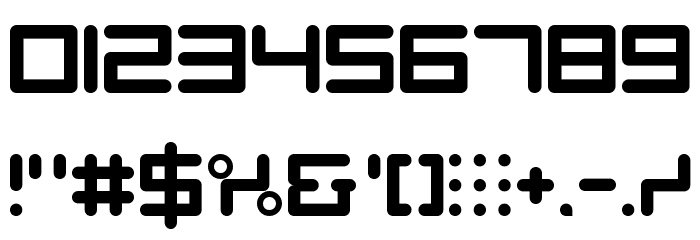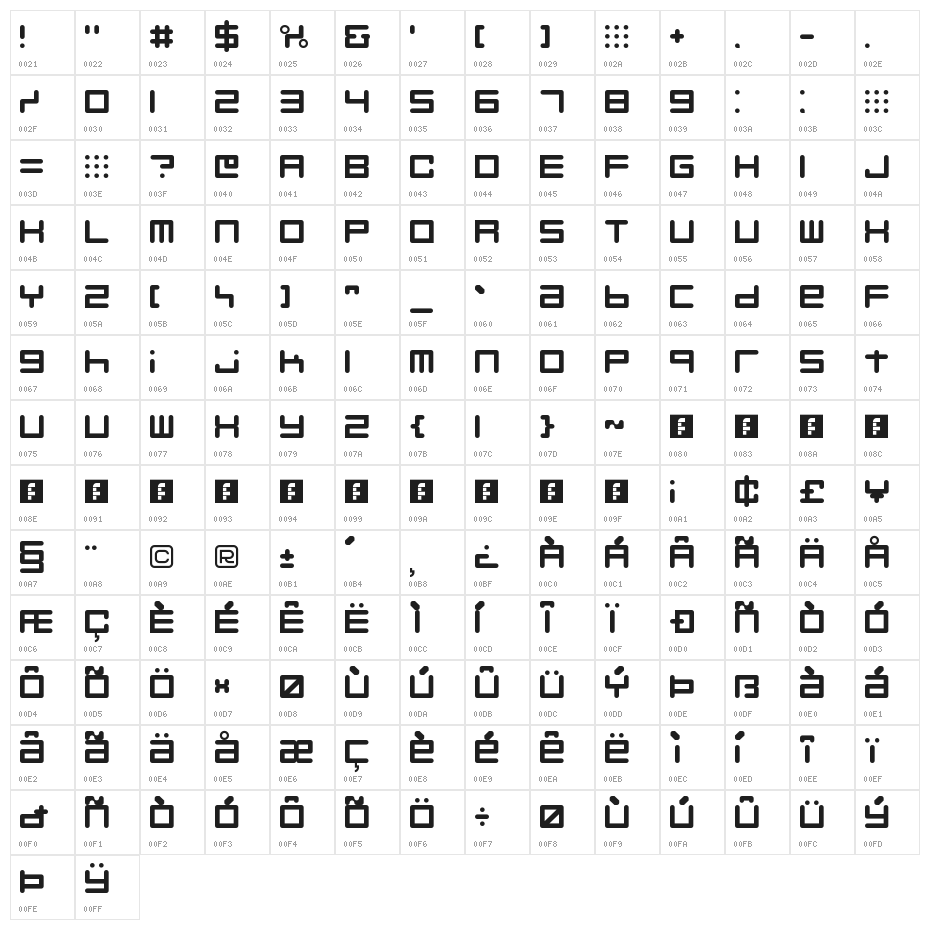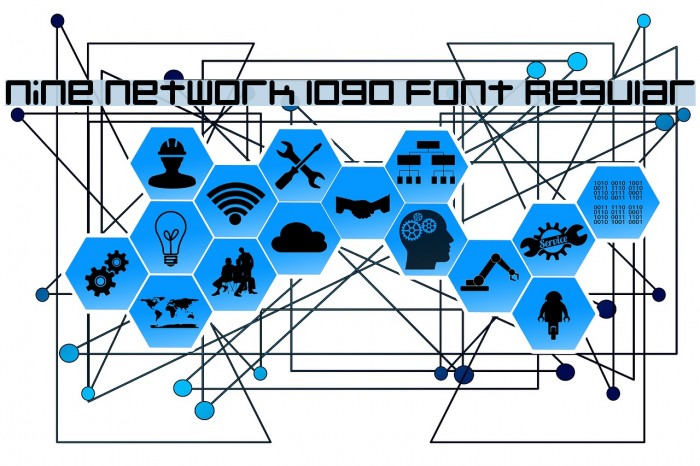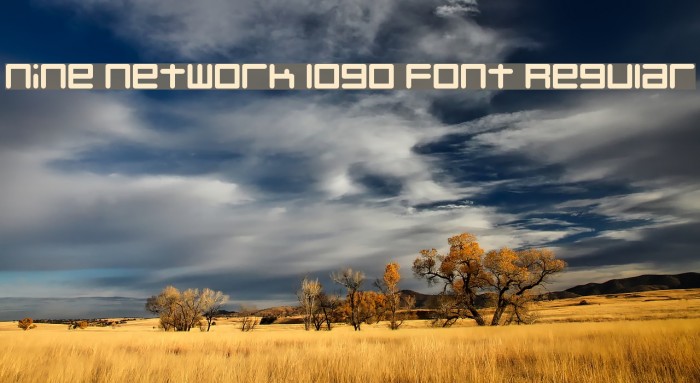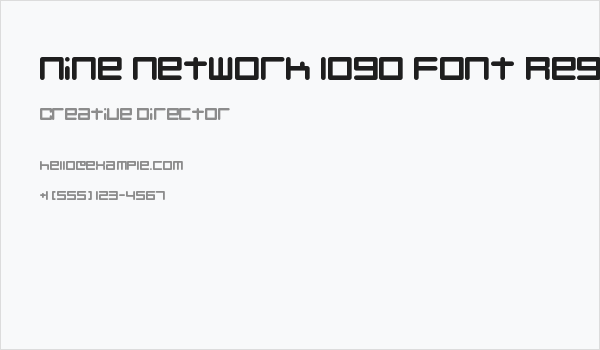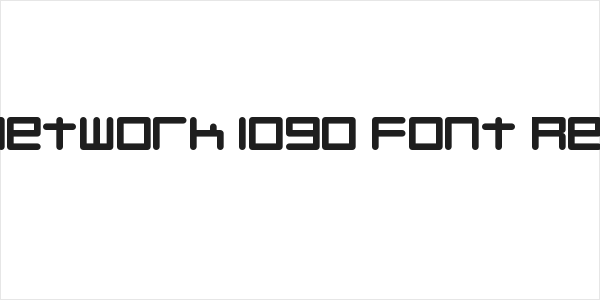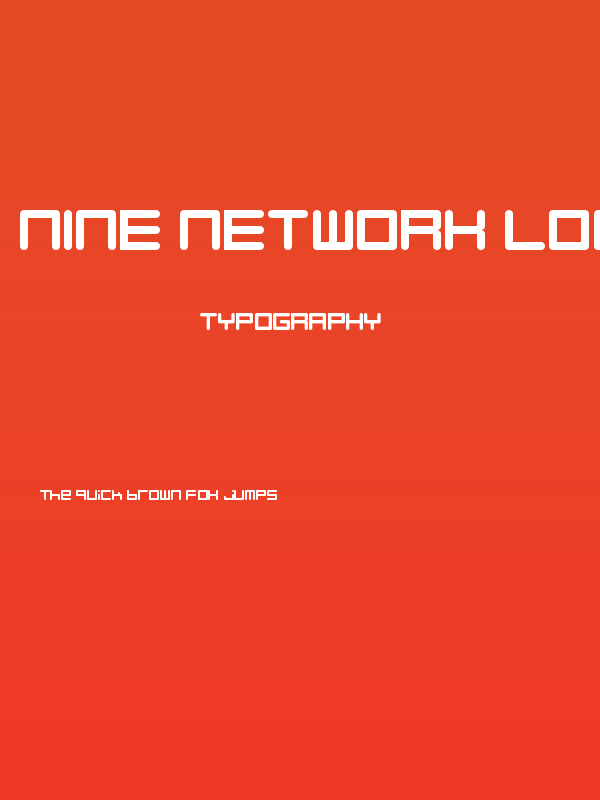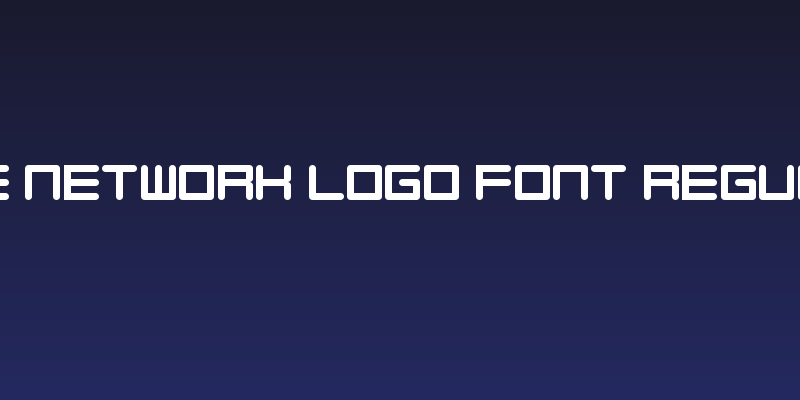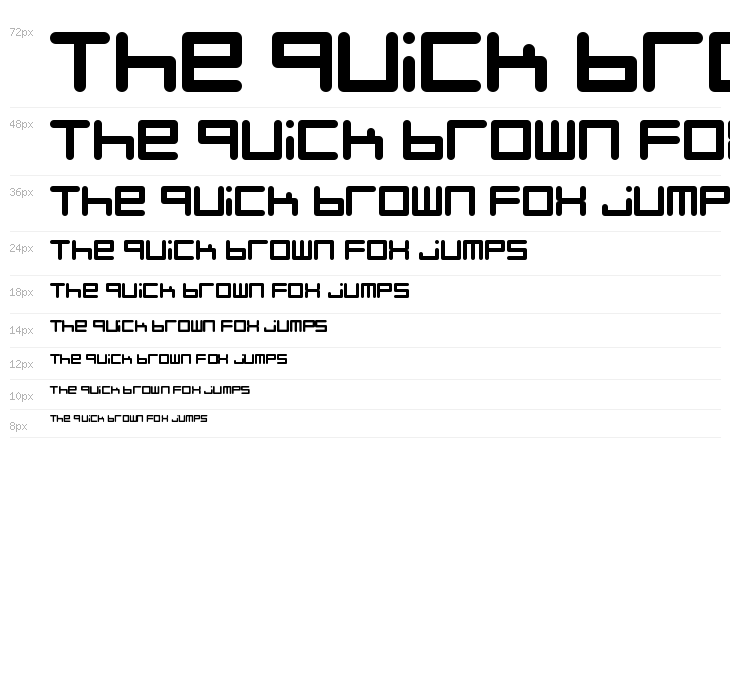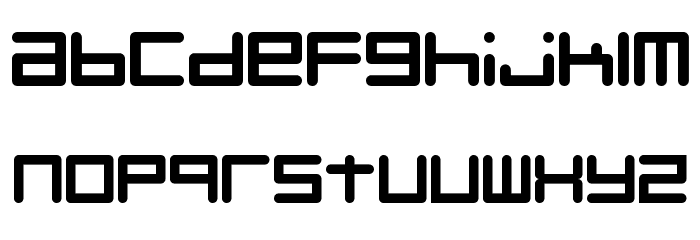
Nine Network logo font Regular Font
Nine Network logo font Regular Description
This font features a modern, geometric design with rounded edges and a uniform stroke width, creating a sleek and futuristic appearance. The characters are constructed with a consistent height and width, contributing to a balanced and harmonious look. The uppercase and lowercase letters share similar design traits, enhancing readability and cohesion. The numerals and special characters maintain the same stylistic approach, ensuring a unified visual identity across all elements. This font's clean and structured form makes it suitable for a variety of digital and print applications.